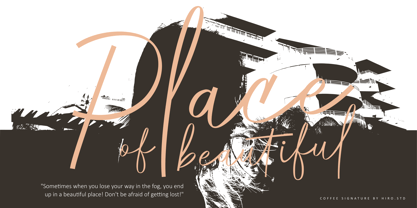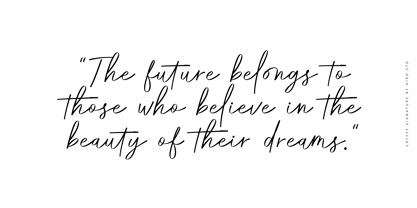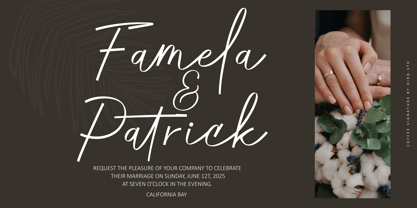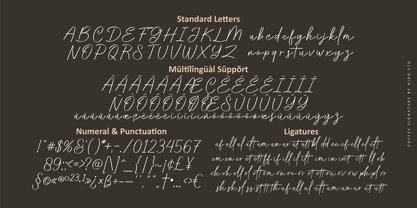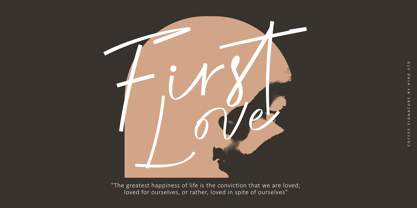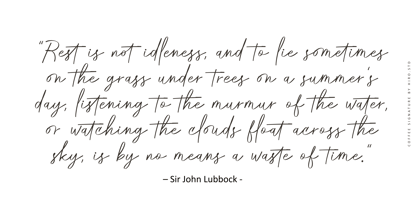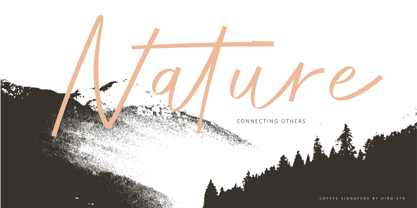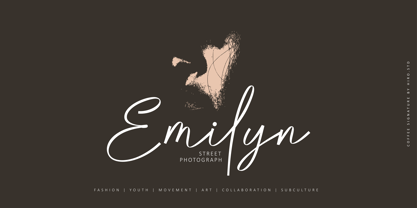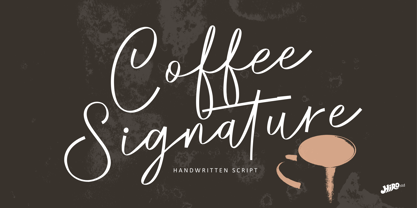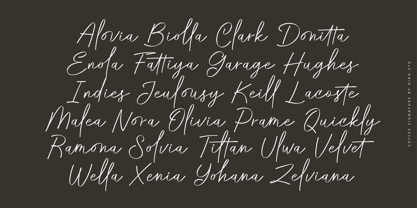
Coffee Signature
by HIRO.std
The Coffee Signature Font Family was designed by Chairul Ashar and published by HIRO.std. Coffee Signature contains 1 styles. More about this family
Coffee Signature is Handwritten Font.
This font describes about fashion, stylish, casual, classy, women, dynamic, easy to use and will bring a good harmony when the letters are connected and paired each other.
FEATURES
- Uppercase and lowercase letters
- 66 Opentype Ligatures
- Numbering and Punctuations
- Multilingual Support
USE
Coffee Signature works great in any logotype, wedding invitation, merchandise, stationery, magazines, product packaging, quotes and any projects that need all about handwriting taste.
Designers: Chairul Ashar
Foundry: HIRO.std